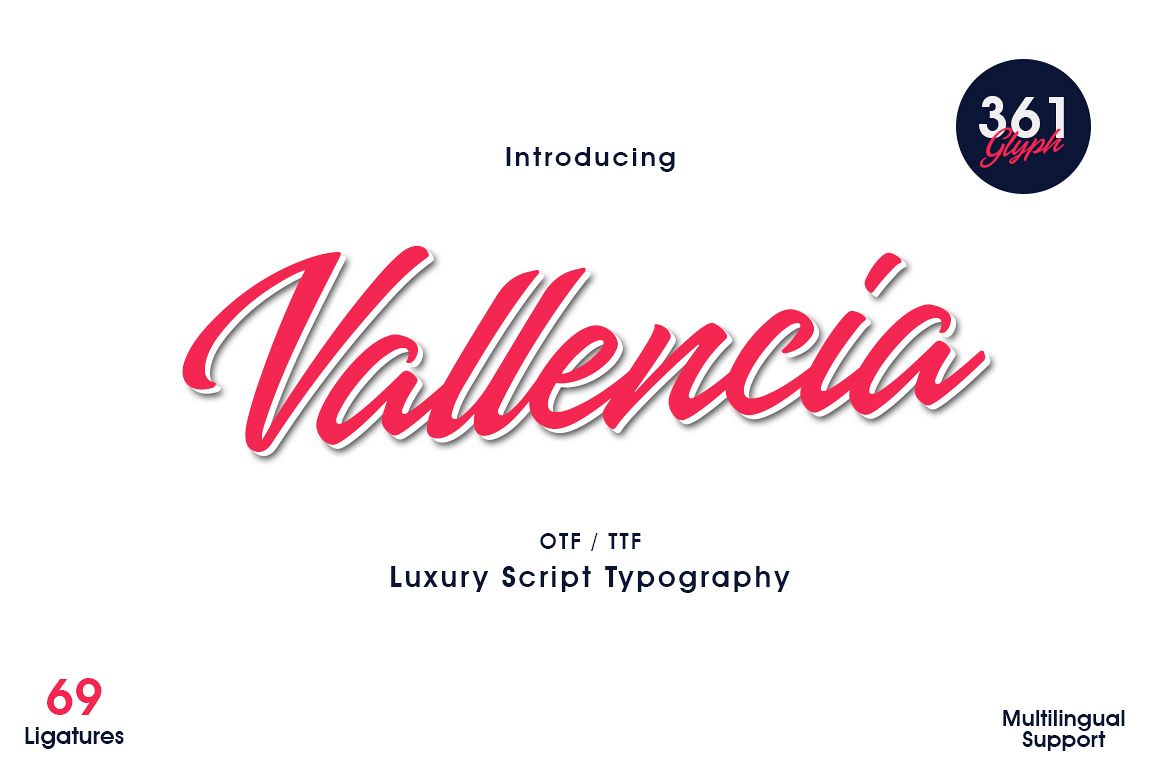
Vallencia
Finally, after weeks, we were able to complete this font, we named it Vallencia.
Vallencia is a type of script font that we think is pretty cool, looks very elegant, looks young, firm and neat.
perfect when you want to use for an official or casual subject, Vallencia can easily adjust
with whatever design model you make, be it branding, display, wedding invitation, magazine, t-shirt design, logo,
name card or whatever you make, rest assured vallencia can adjust it.
Vallencia consists of 361 Glyphs, 69 Ligatures, multilingual, number and punctuation, and is equipped with uppercase
Alternate from A-Z, and several alternate lowercase to make your design look more beautiful. who will make
very satisfied with the results of Vallencia.